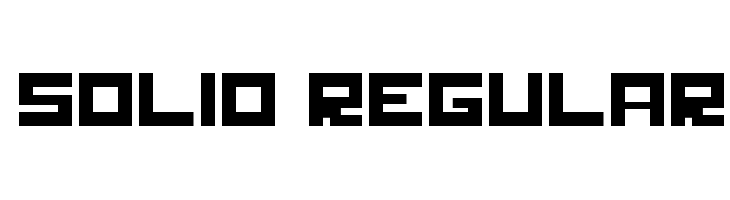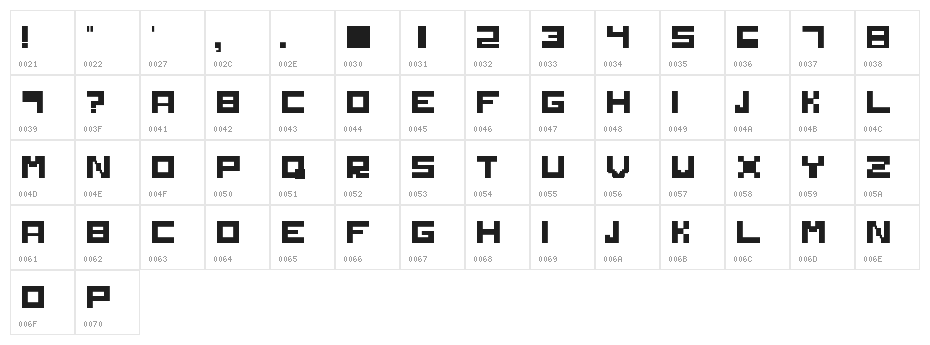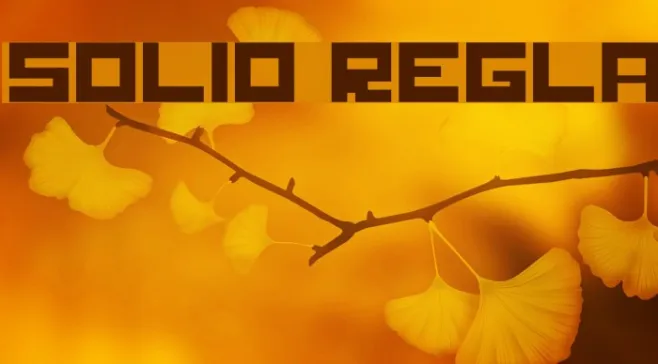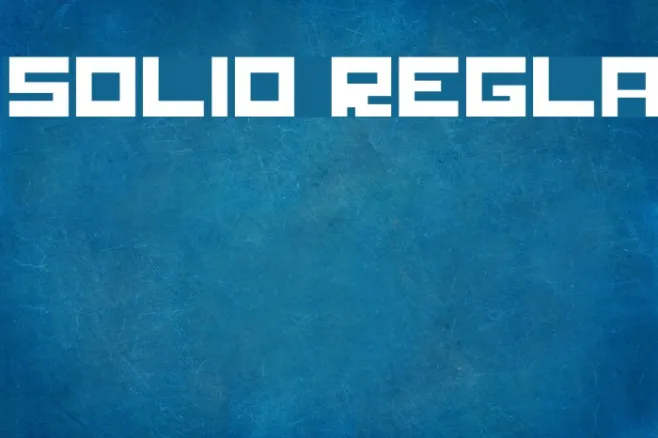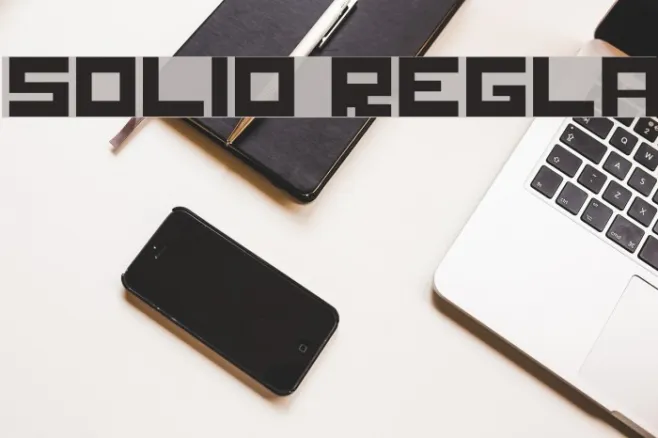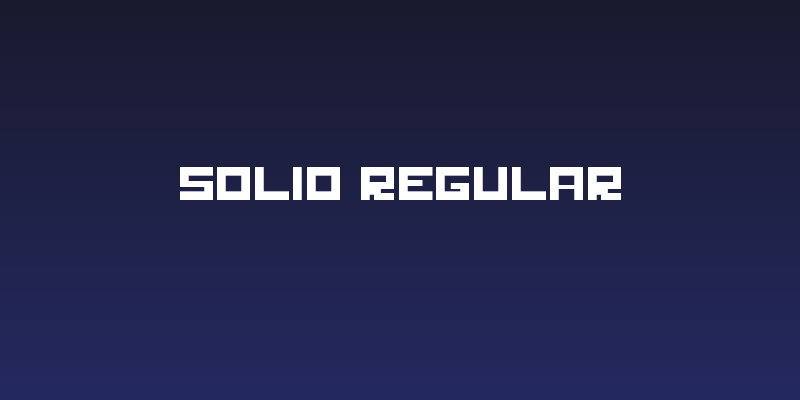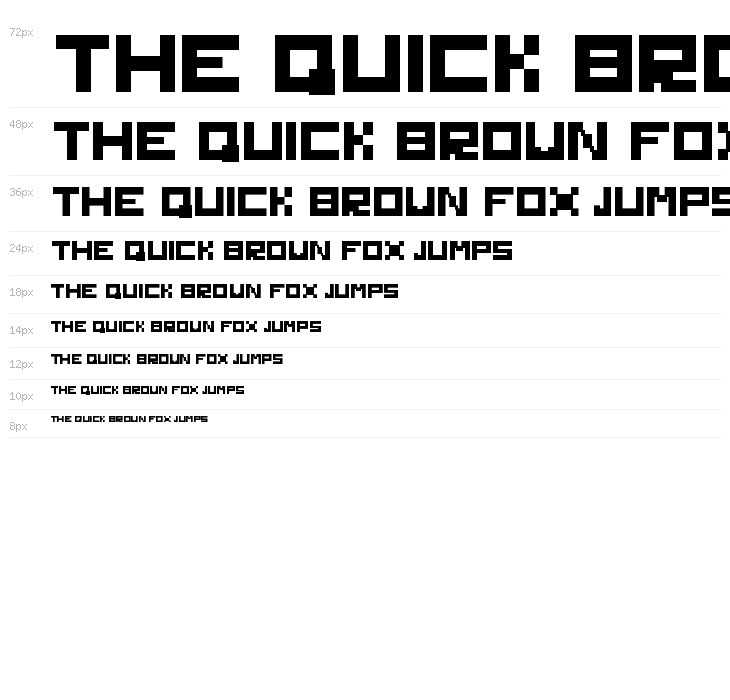
Solid Regular Font
Solid Regular Description
This font features a bold, blocky design with a distinctly pixelated appearance, reminiscent of early digital or arcade-style typography. The characters are uniformly structured with sharp, angular edges and consistent stroke widths, creating a cohesive and robust look. The uppercase and lowercase letters maintain a similar height, contributing to a monospaced feel, although the font is not strictly monospaced. The numerals and special characters follow the same geometric style, ensuring visual harmony across all glyphs. This font's design is both retro and modern, making it versatile for various creative applications.
Overall StyleRetro, Modern
Proposed ProjectsIdeal for video game design, digital art projects, retro-themed posters, and tech-related branding.